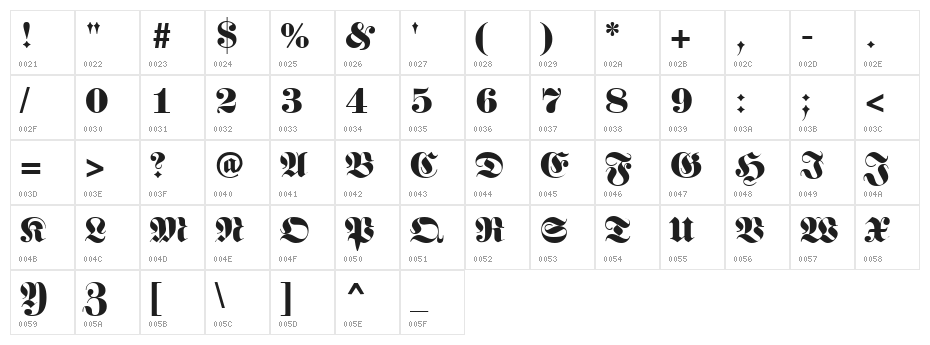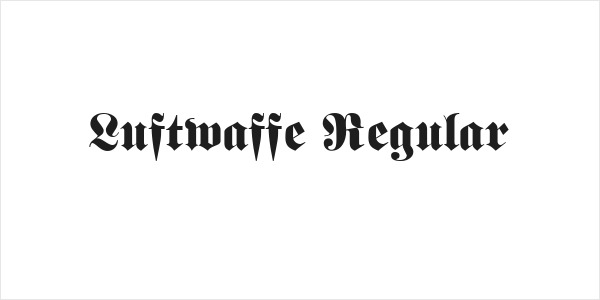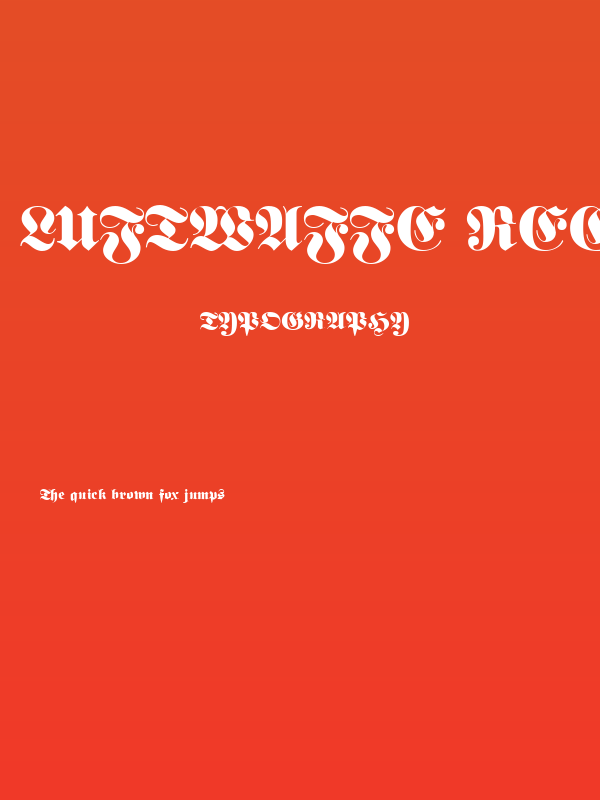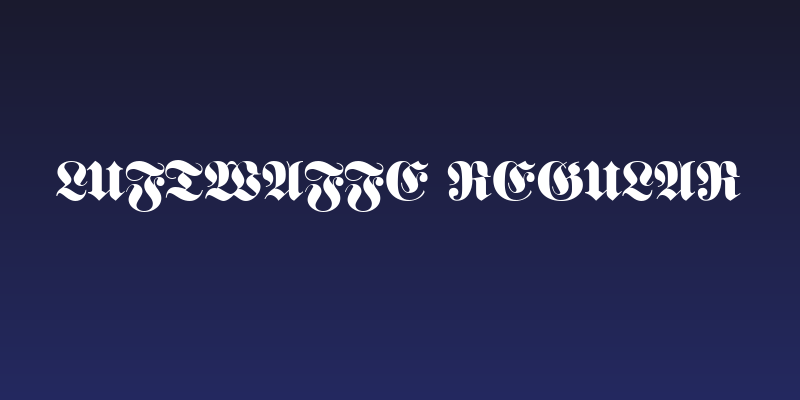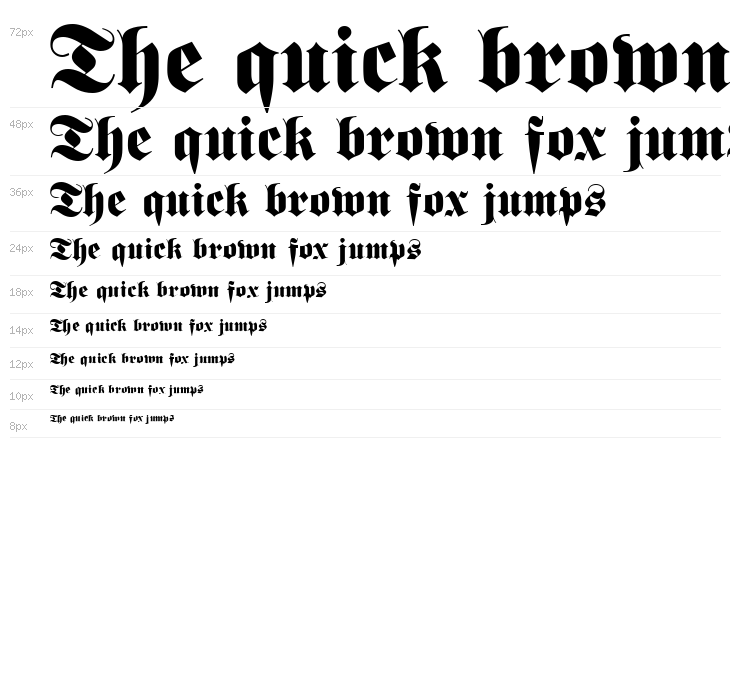
Luftwaffe Regular Font
Luftwaffe Regular Description
This font exhibits a classic blackletter style, characterized by its intricate and ornate design. The uppercase letters are bold and dramatic, with sharp angles and decorative flourishes that give them a gothic appearance. The lowercase letters maintain a similar aesthetic, with a slightly more subdued flair, yet still retaining the distinctive blackletter characteristics. The numerals are consistent with the overall style, featuring bold strokes and unique shapes. Special characters are designed to match the elaborate and historical feel of the font, making it suitable for projects that require a touch of elegance and tradition.
| Overall Style | Vintage |
| Use Case | Logos, Headlines, Decorative text |
| Proposed Projects | Ideal for historical documents, wedding invitations, certificates, and branding that requires a traditional or gothic touch. |